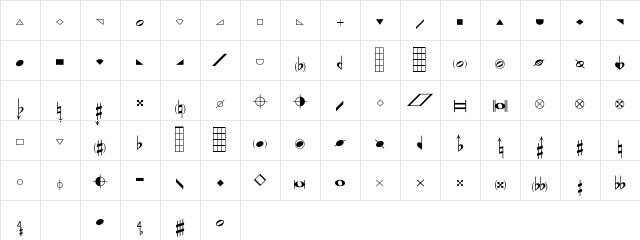
Maestro Percussion Regular
Foundry: (c) Coda Music Technology
Design Context for Maestro Percussion
Maestro Percussion is a composed and adaptable typeface that performs quietly and consistently across a wide range of design contexts.